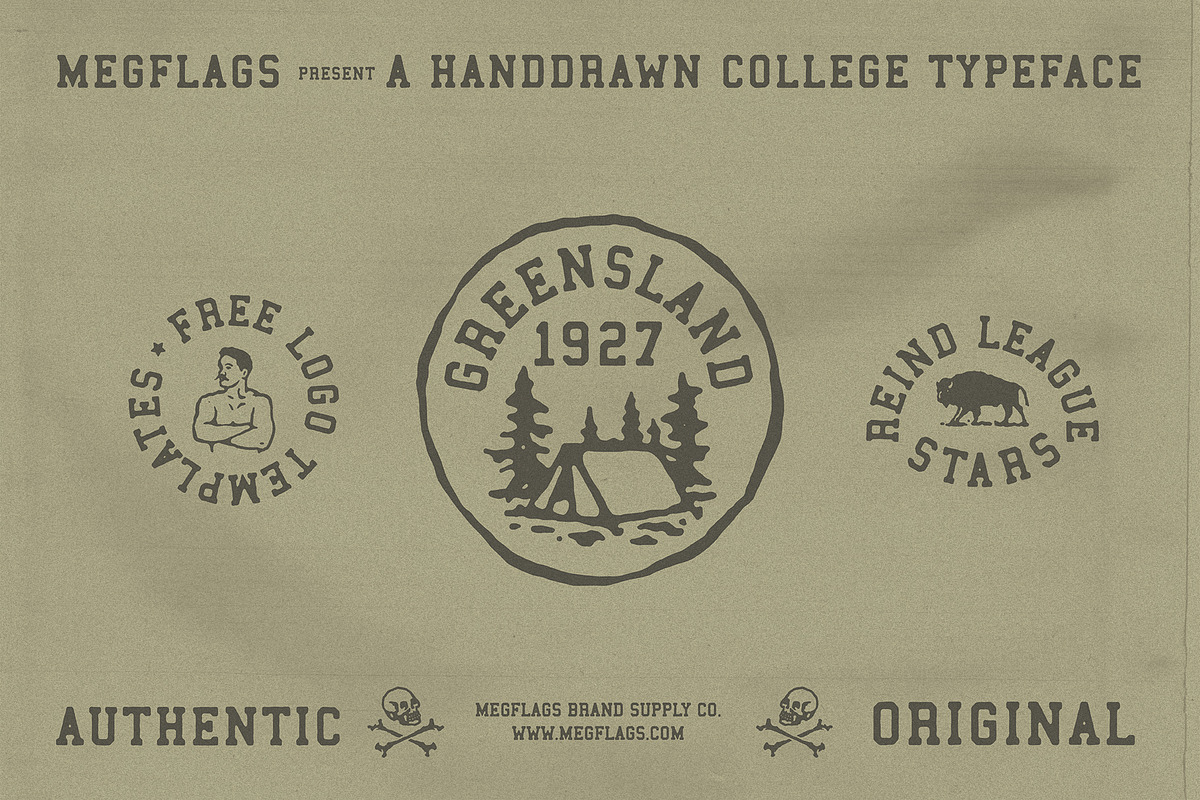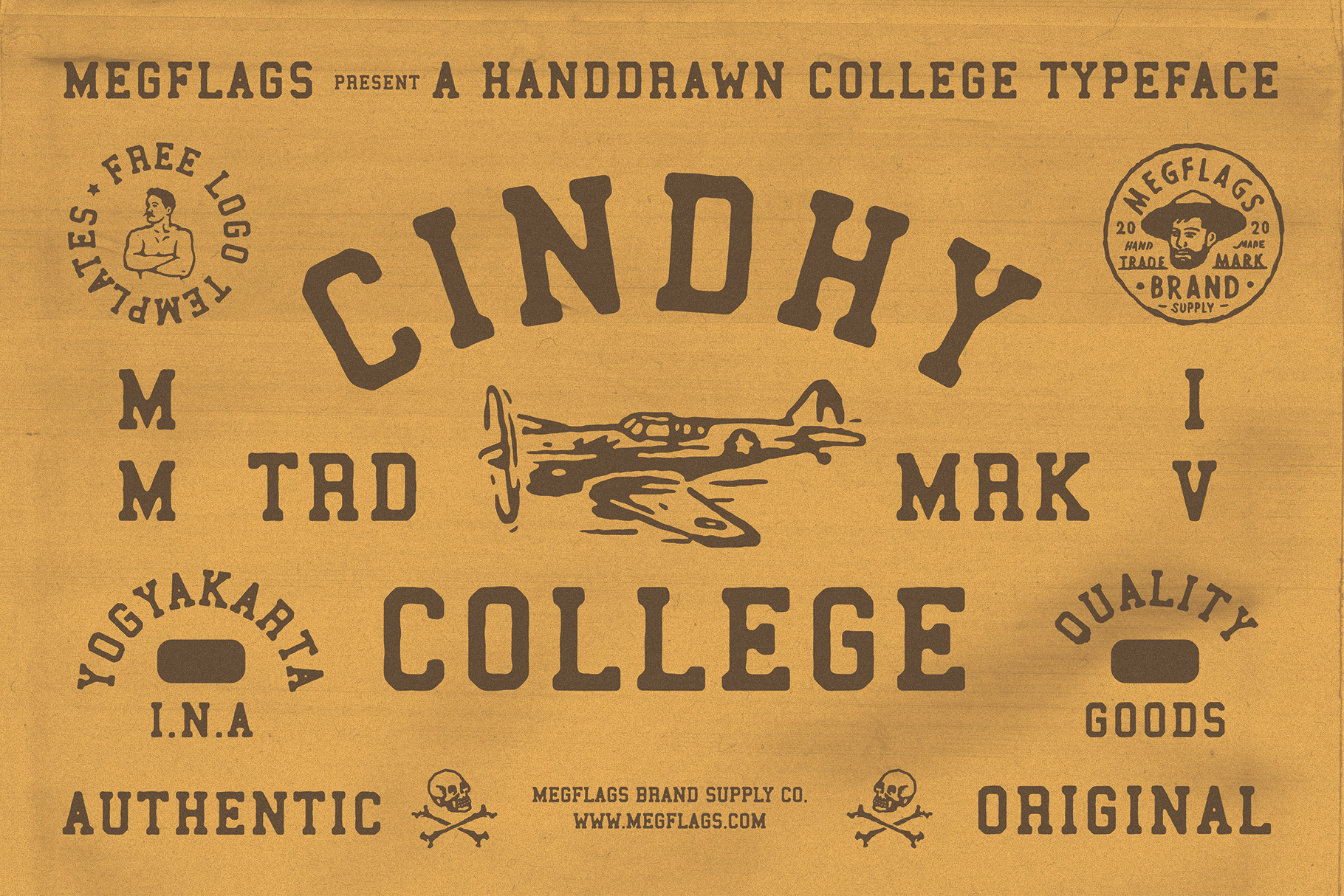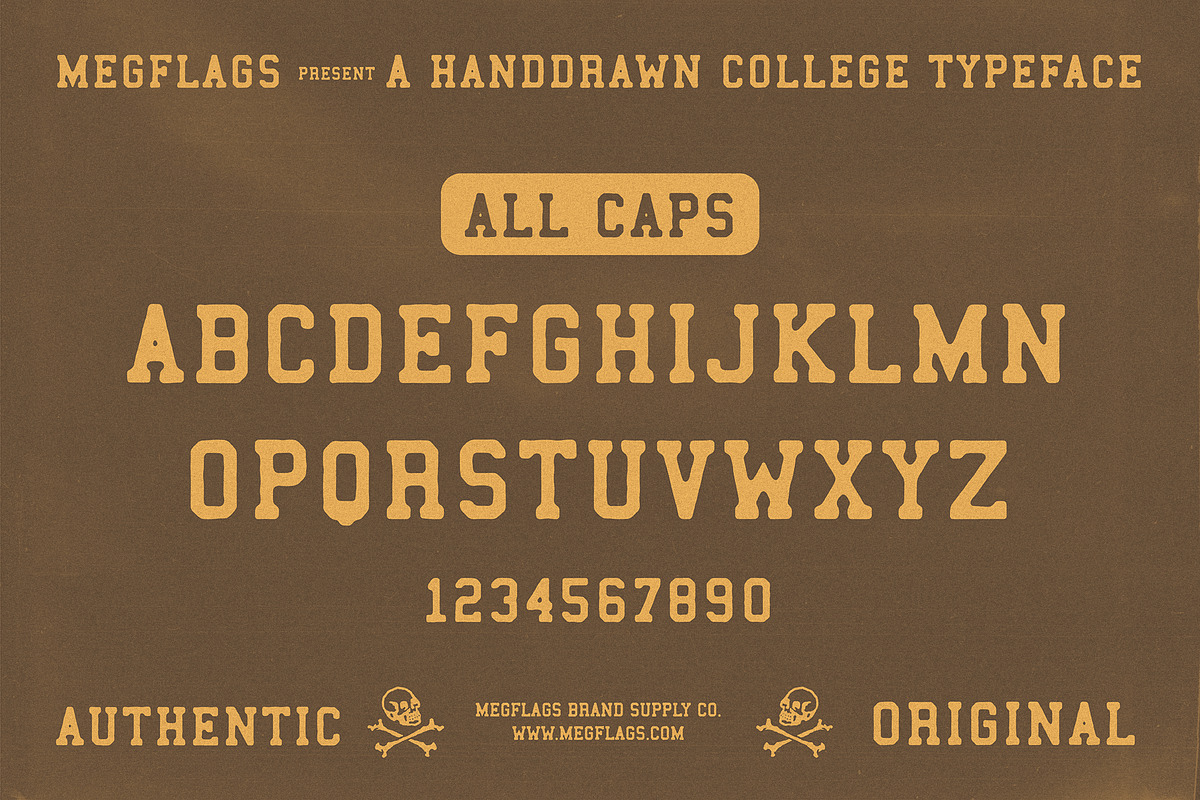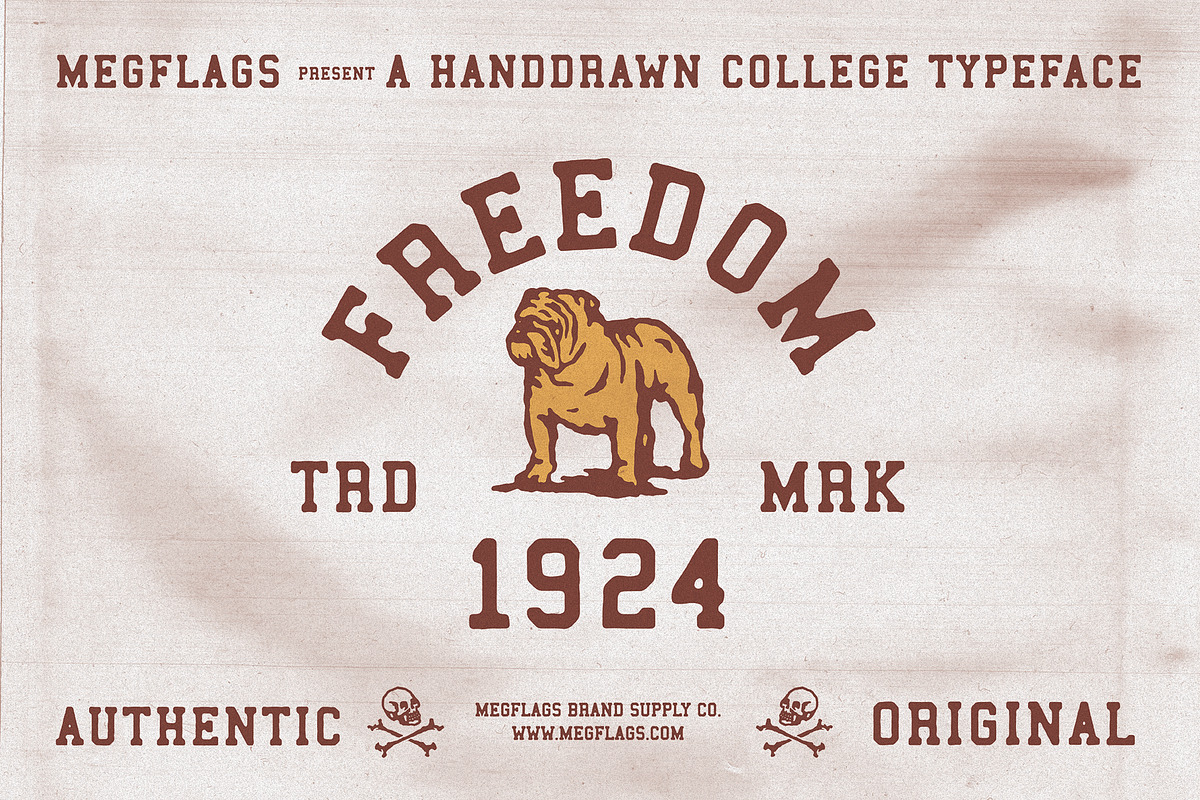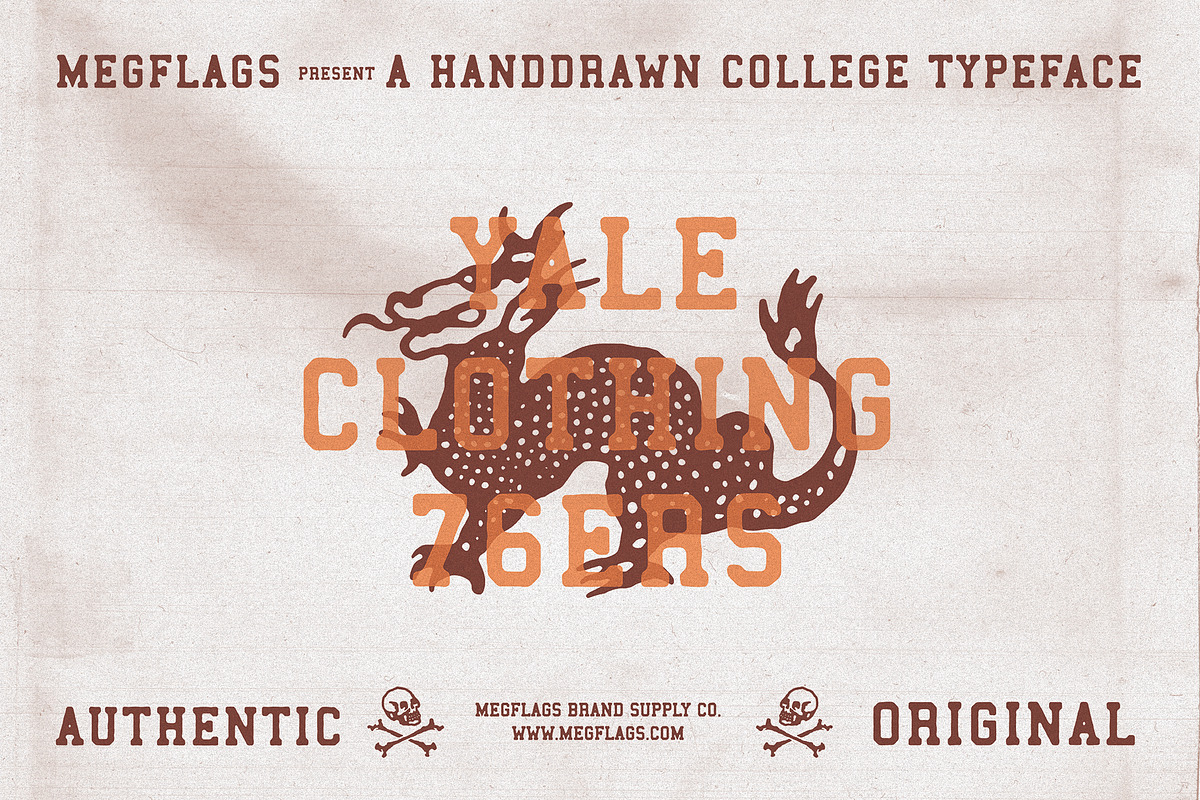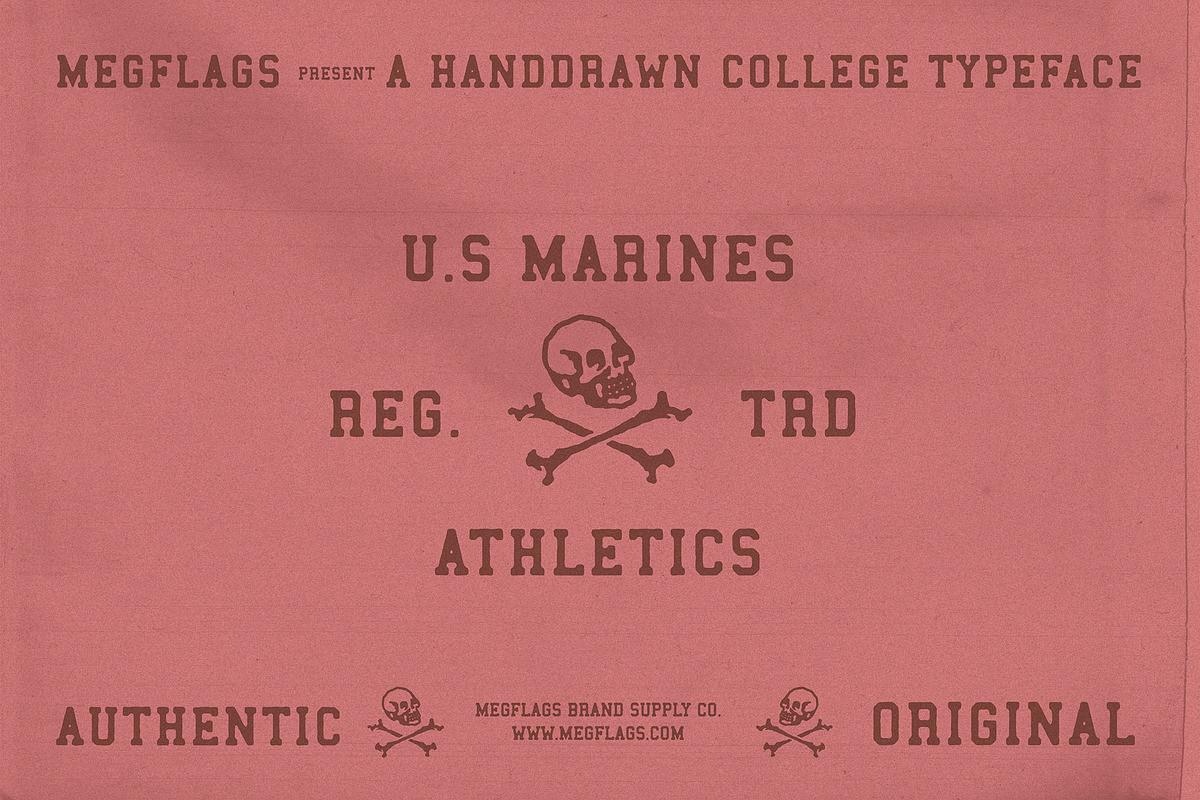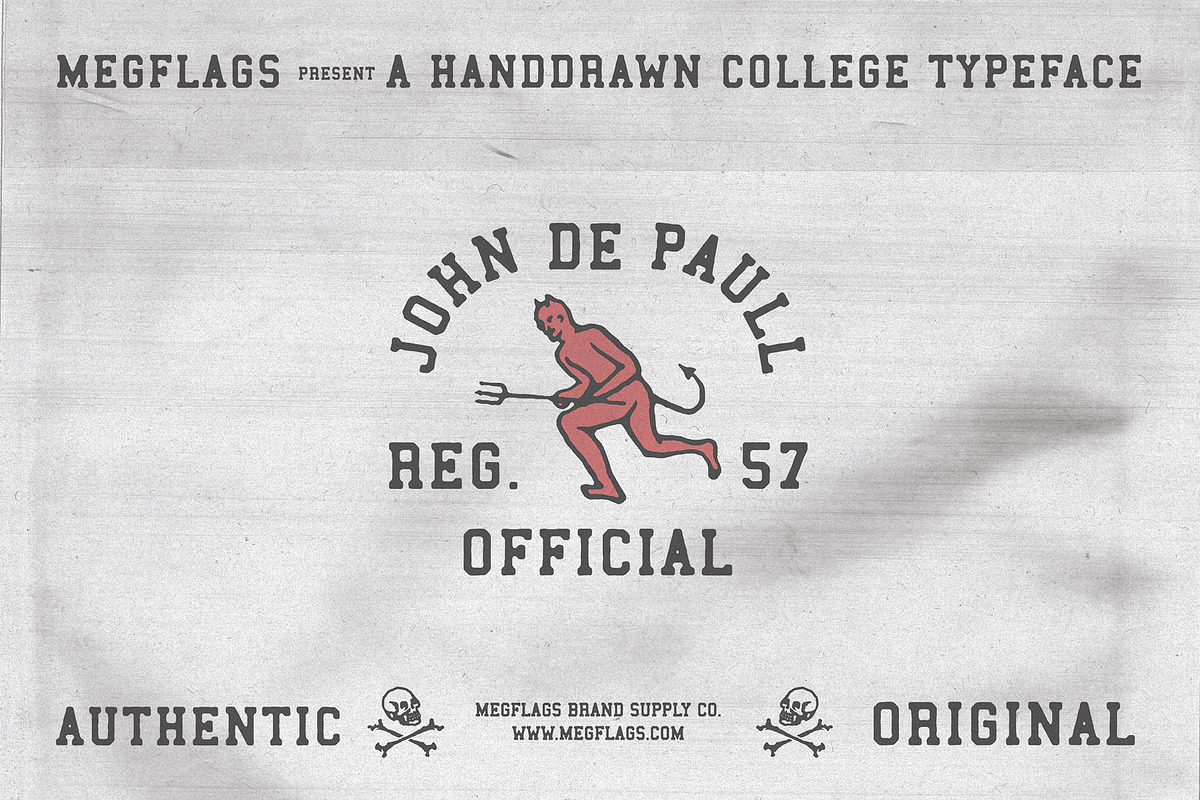
Cindhy College Font
Introducing Cindy College Font
Inspired by ivy league alphabet, Give your designs some good old college. You will get the bonus too!!! Free Logo Templates! Click the image for the details.